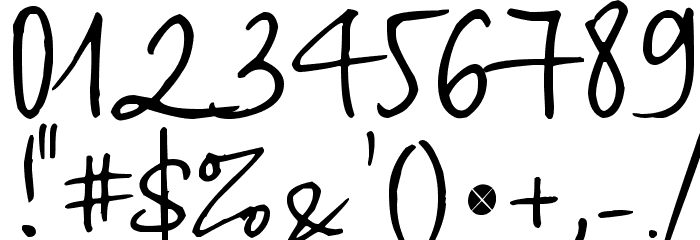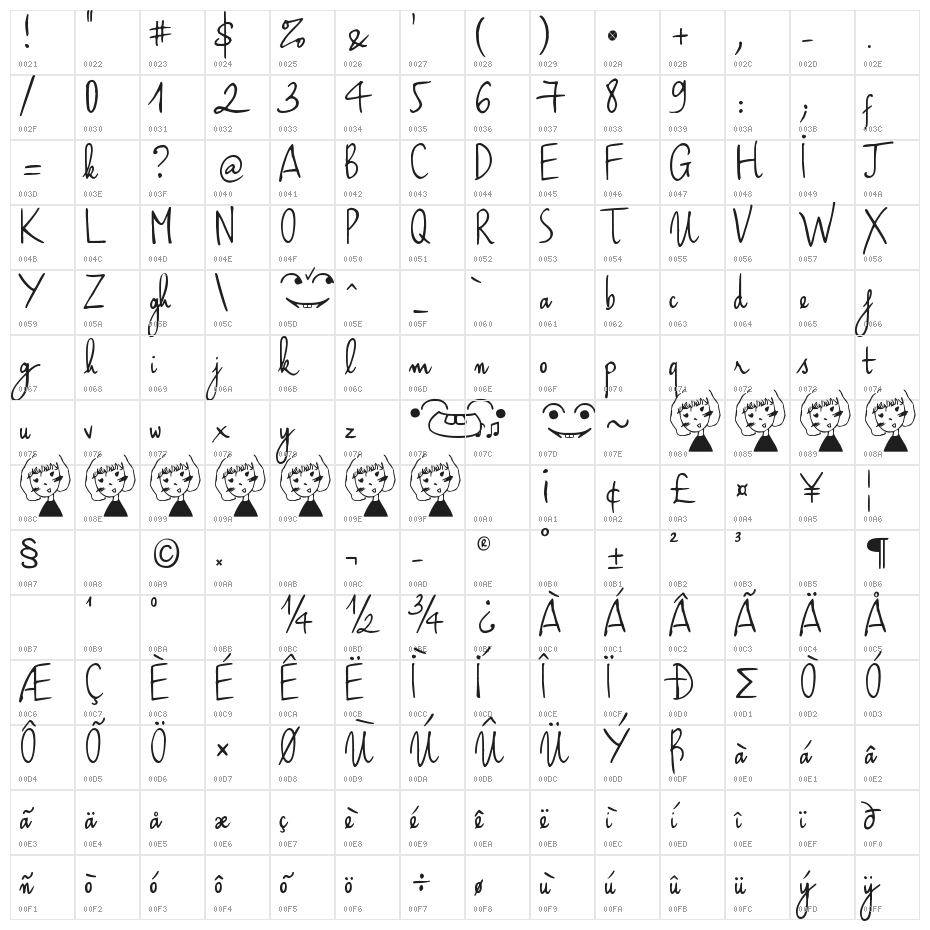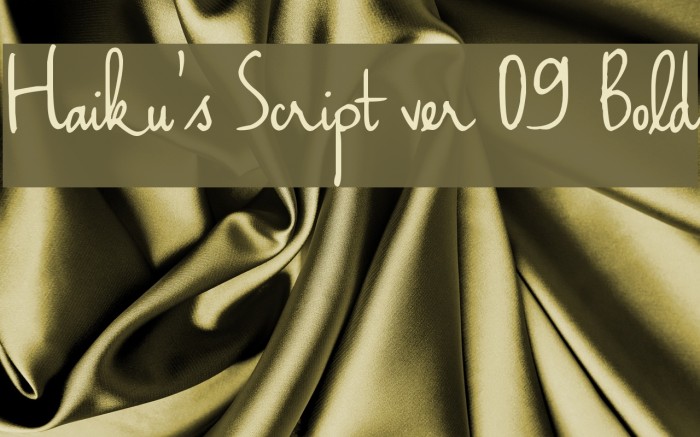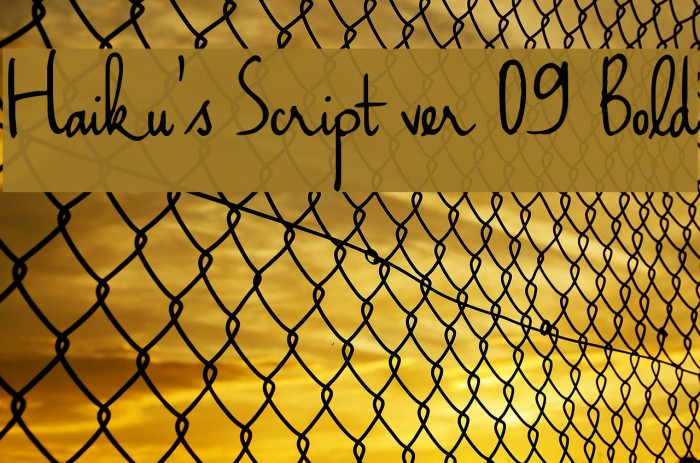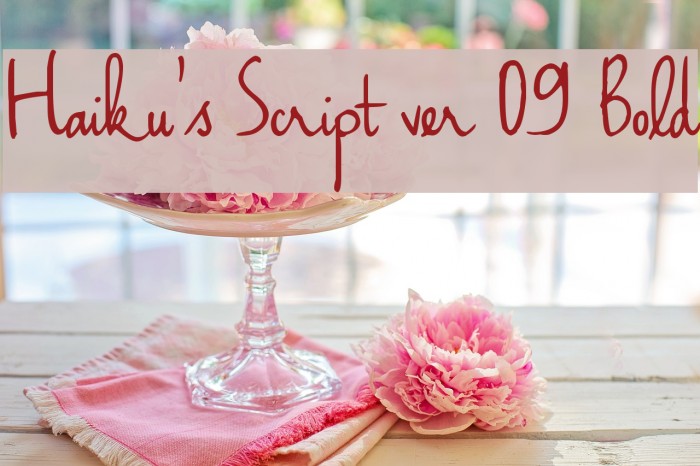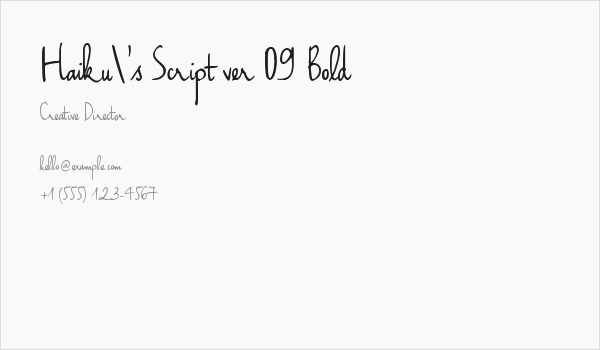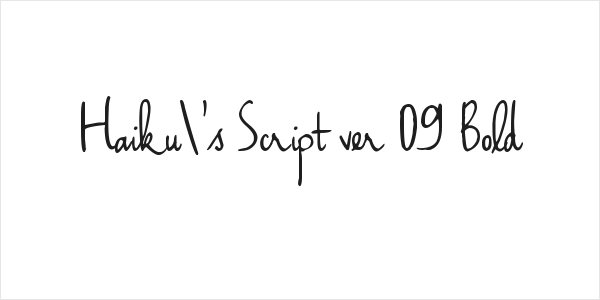
Haiku's Script ver 09 Bold Font
Haiku's Script ver 09 Bold Description
This font exudes a playful and artistic vibe, characterized by its handwritten style that mimics the fluidity of natural handwriting. The uppercase letters are bold and slightly irregular, giving a sense of spontaneity and creativity. The lowercase letters maintain a consistent flow, with some characters featuring unique loops and curves that add to the font's charm. Numbers are clear and legible, while special characters retain the same whimsical quality. The overall appearance is casual yet stylish, making it suitable for projects that require a personal touch.
| Overall Style | Casual, Artistic |
| Proposed Projects | Ideal for greeting cards, invitations, personal branding, and creative projects that require a personal and artistic touch. |